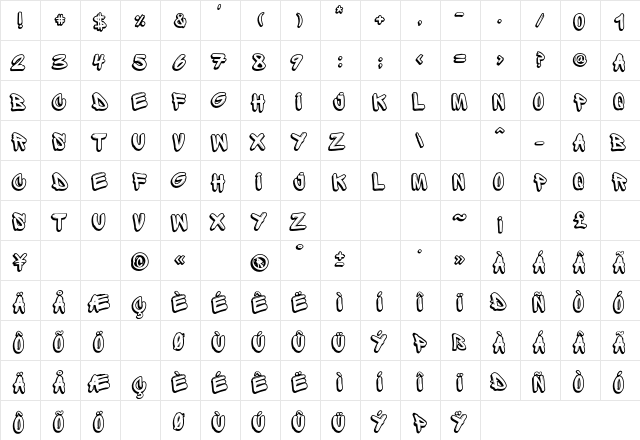
Sprite Graffiti Shadow
Design Context for Sprite Graffiti Typeface
Sprite Graffiti brings ornamental detail and strong personality to headlines and identities, where visual impact matters more than quiet functionality.
Font Pairing: Pair with a clean neutral sans-serif for body copy to let Sprite Graffiti's character lead without overwhelming the composition.
Pro Tip: Use Sprite Graffiti exclusively at display sizes — it was designed to be seen, not read at length. Let a neutral companion handle body copy.